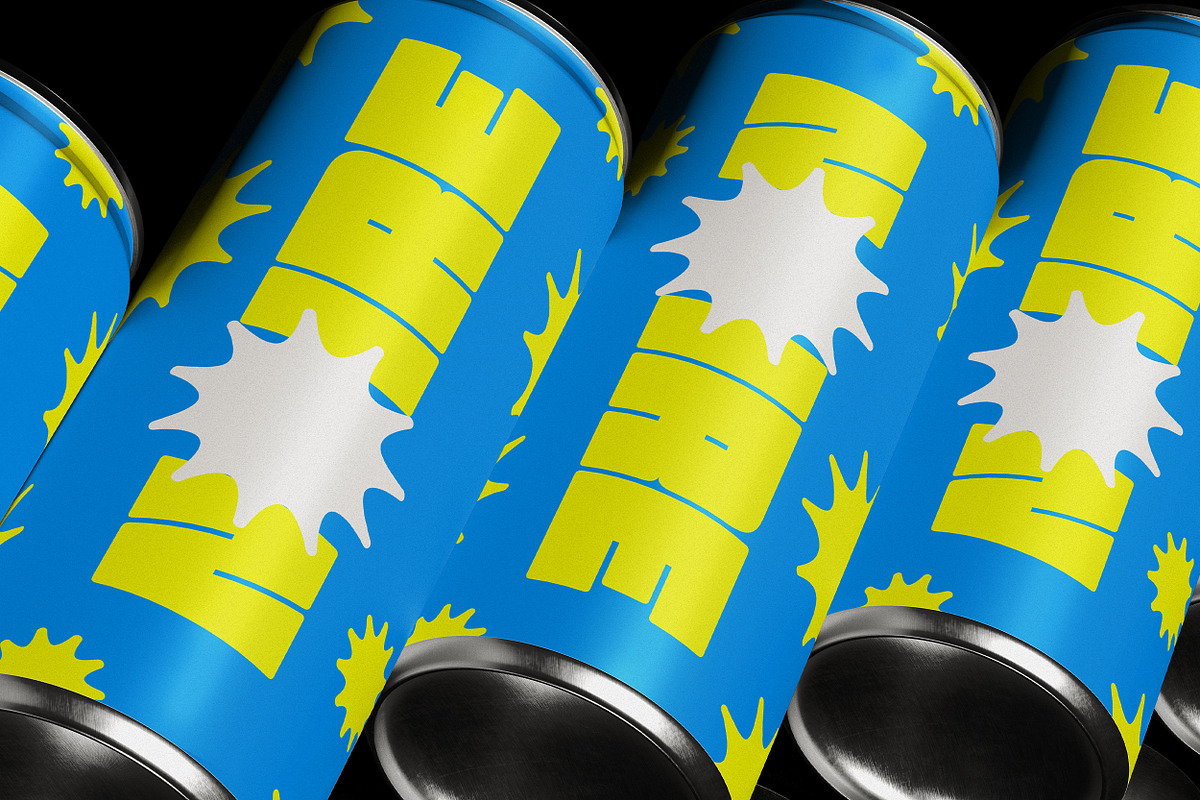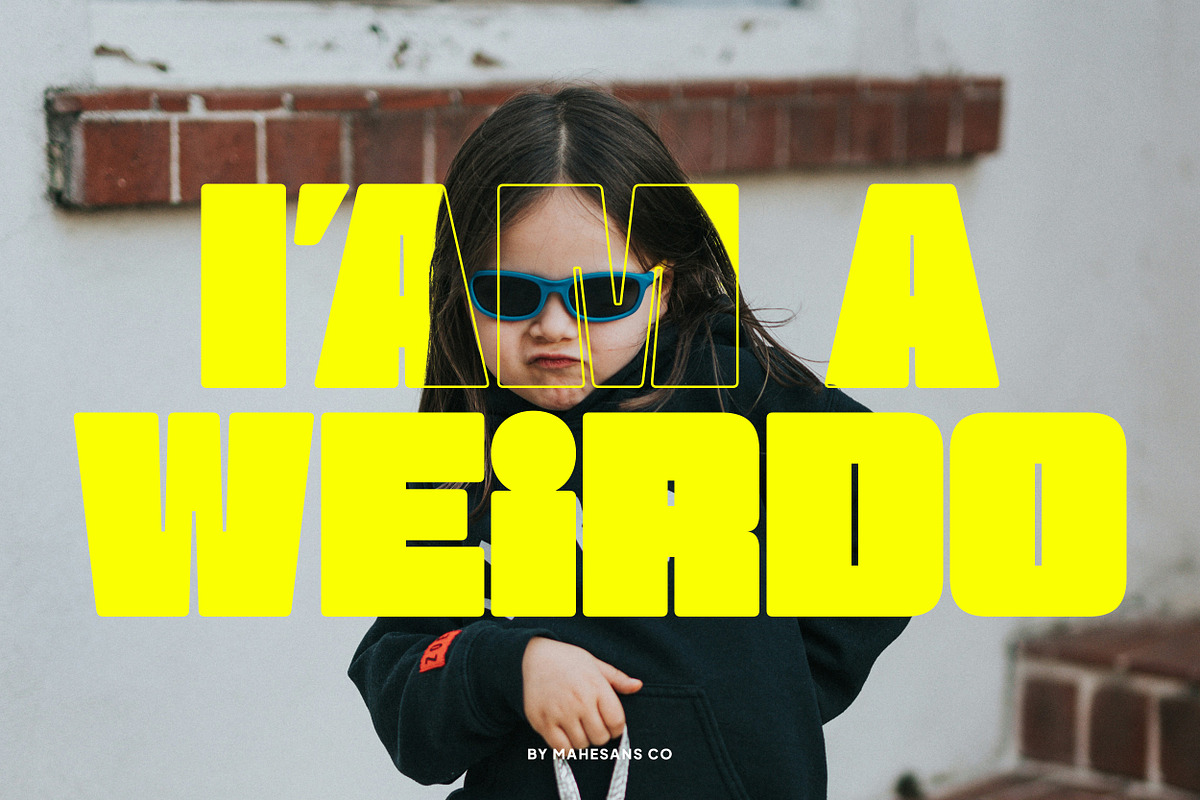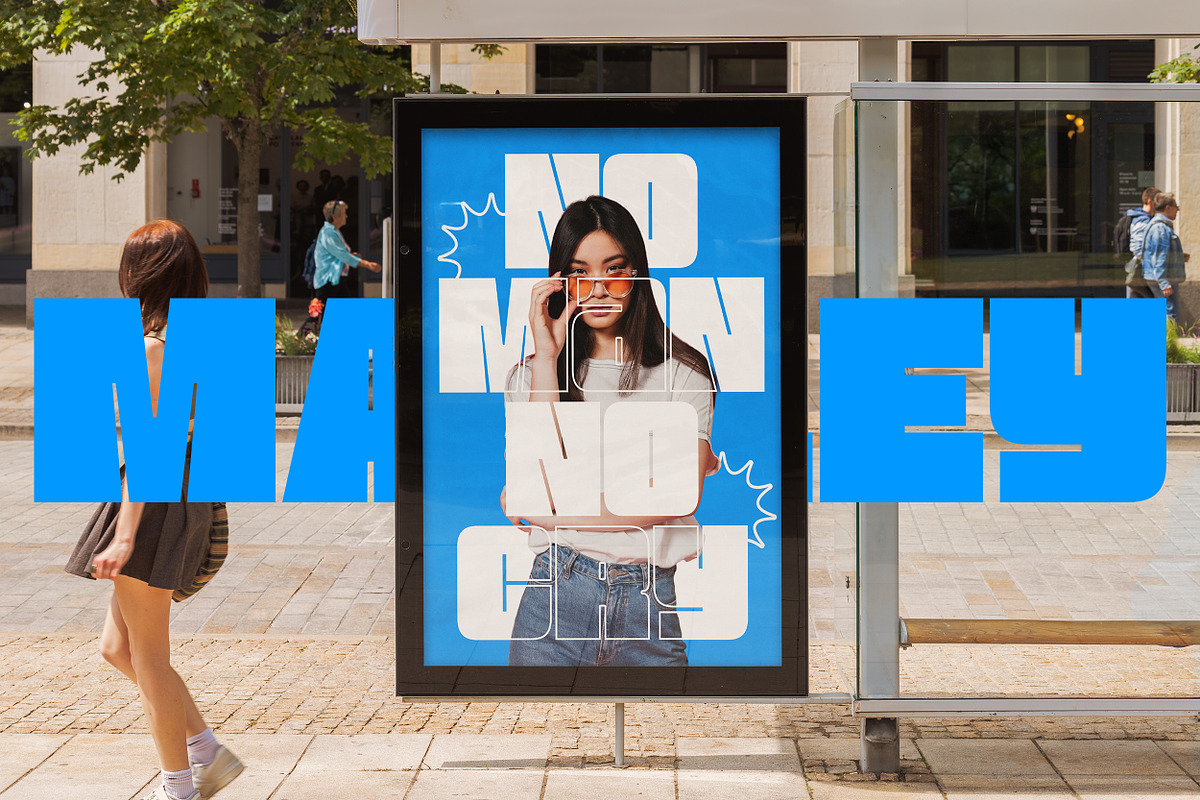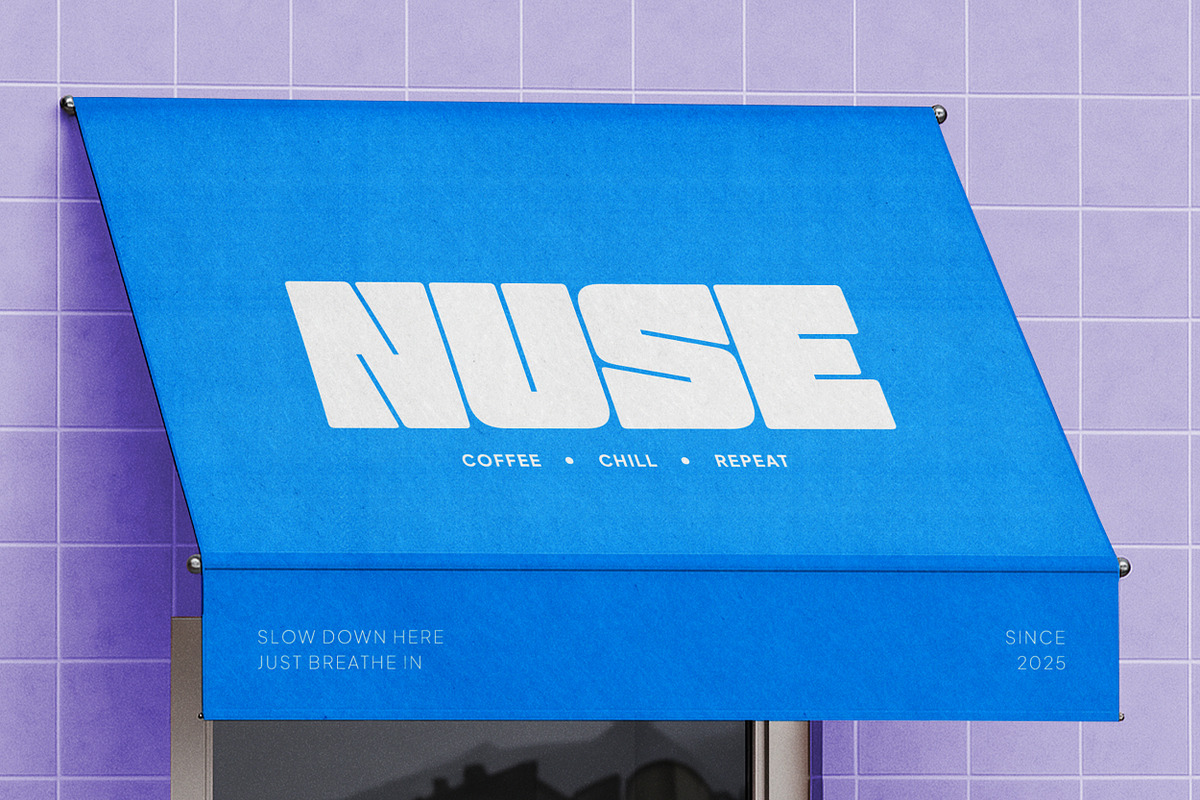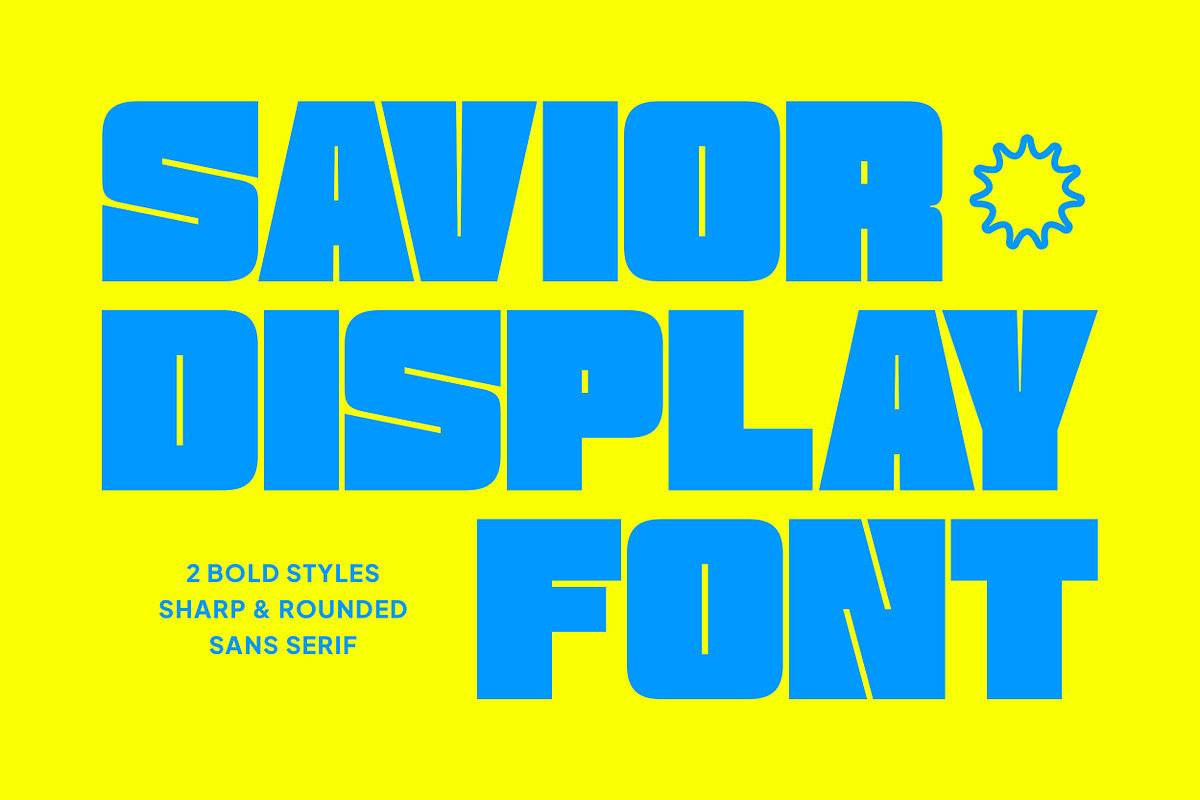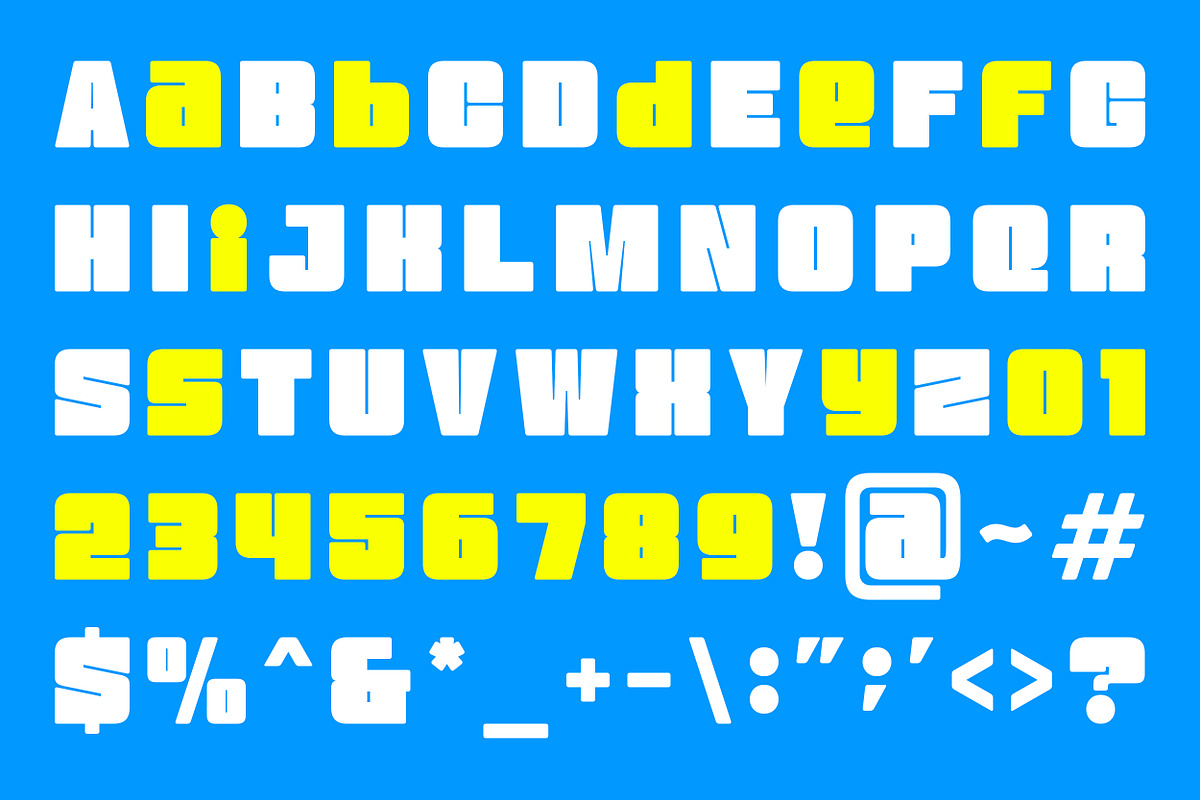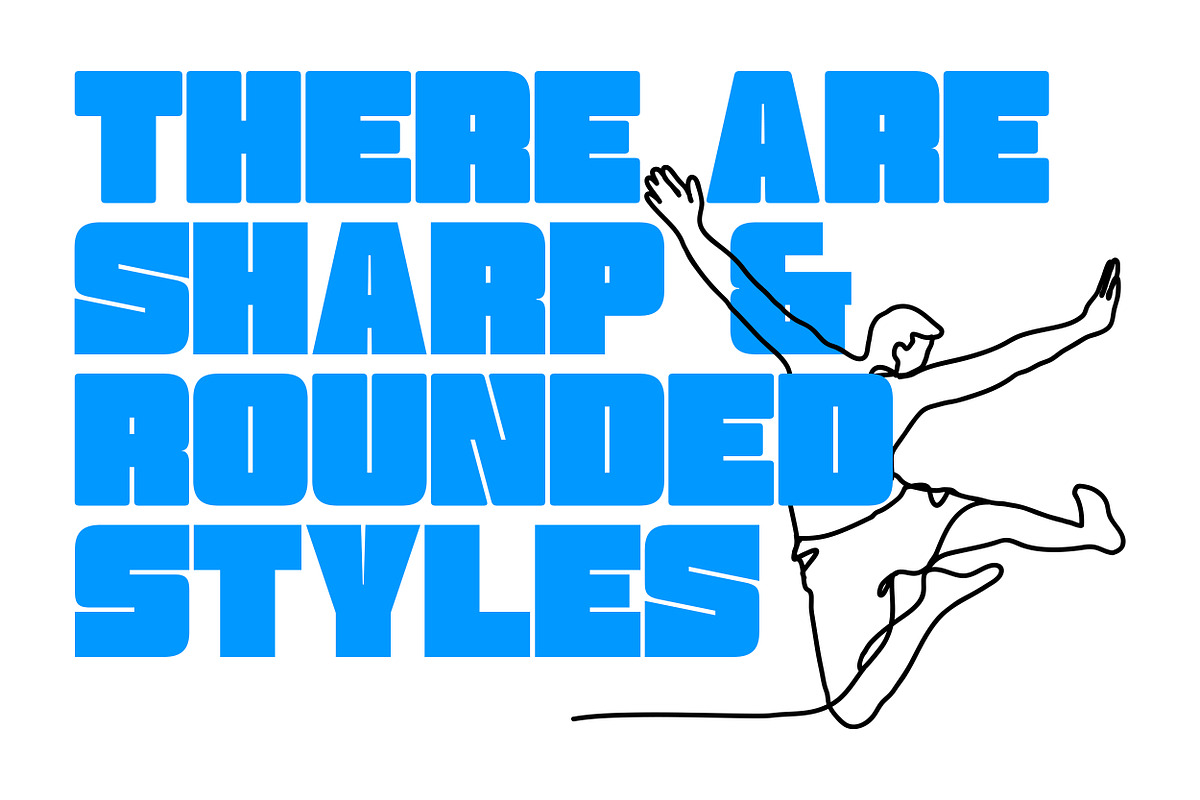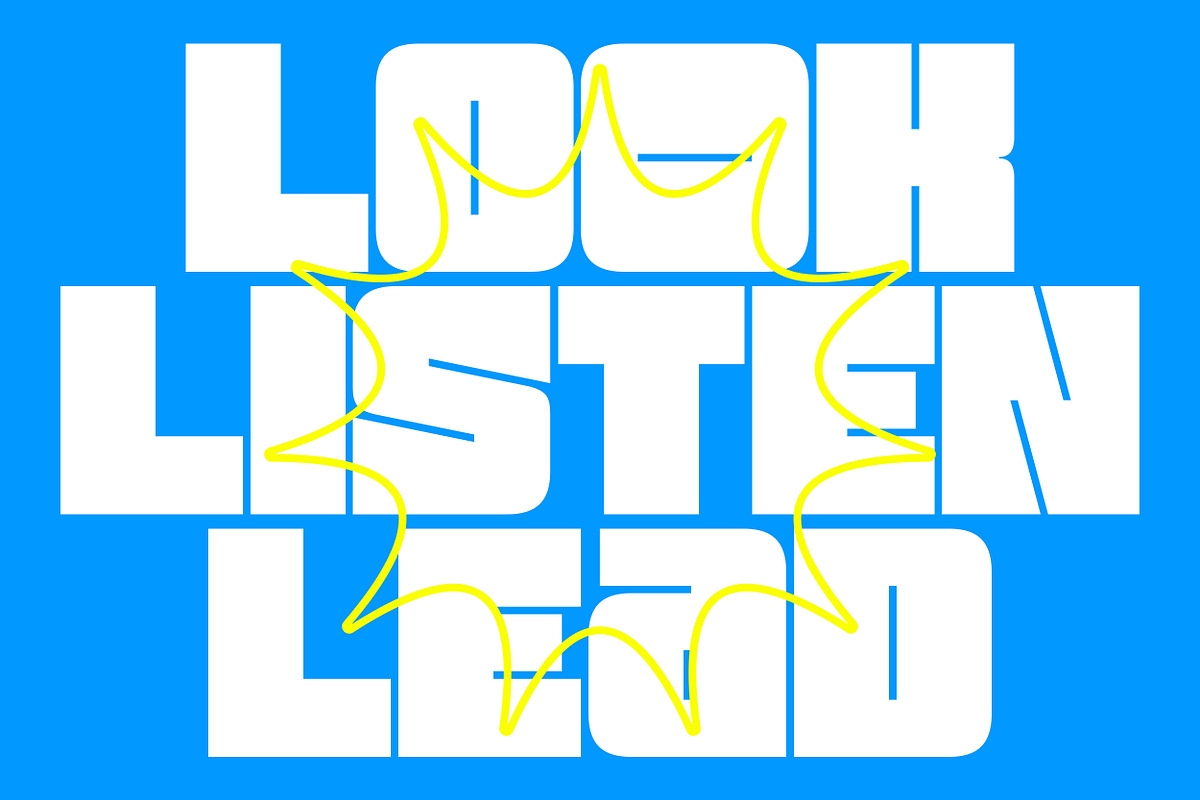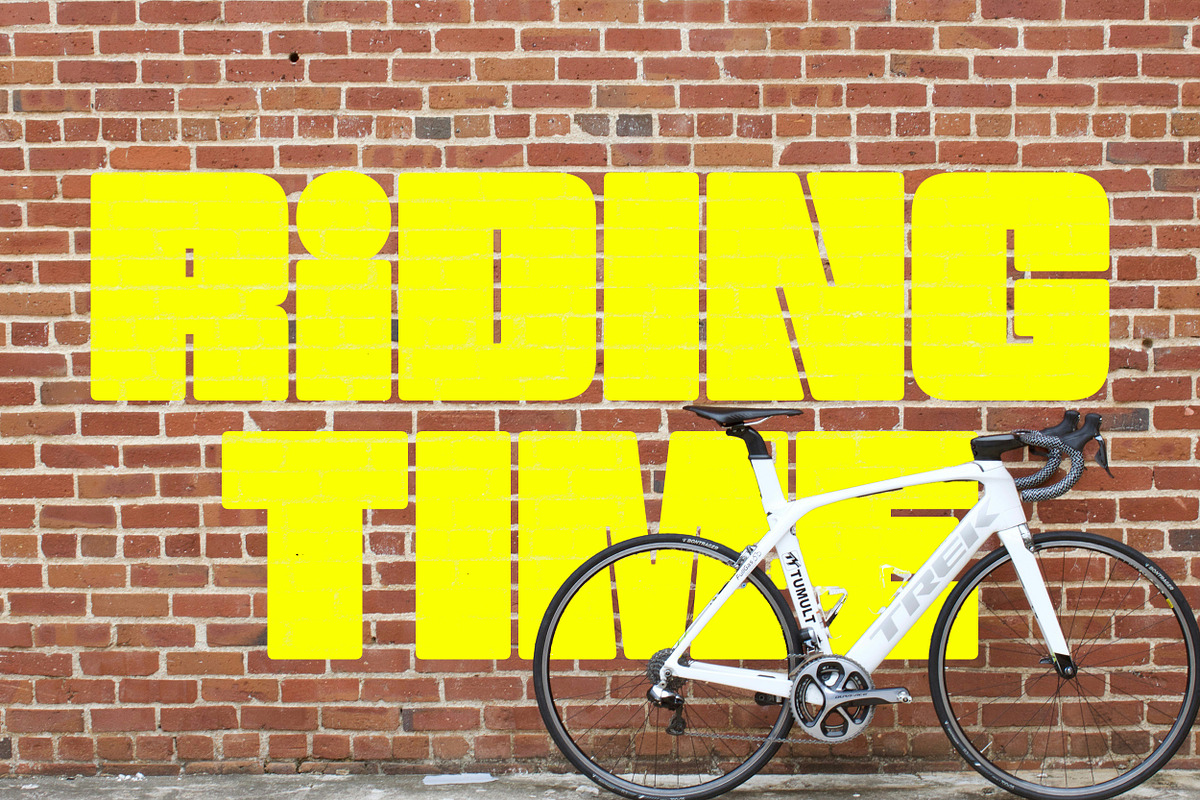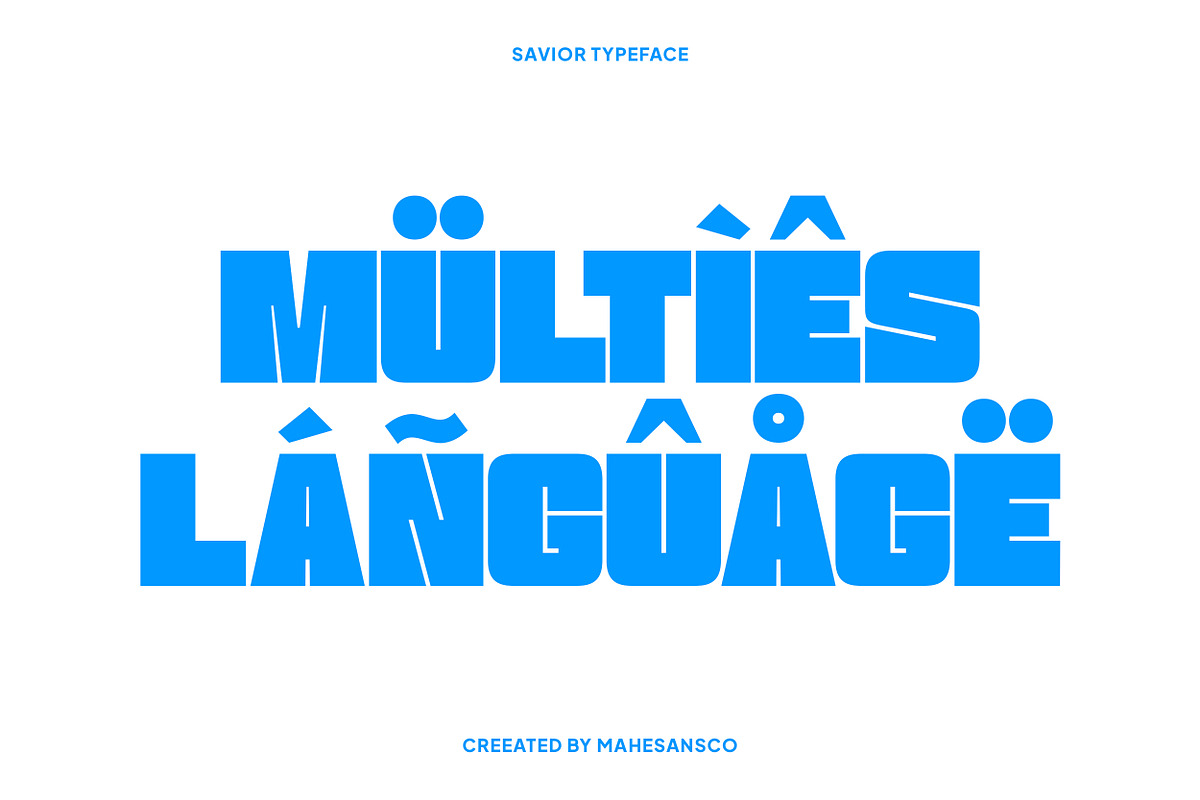
Savior - 2 Styles Bold Sans Serif
SAVIOR is a powerful bold display font with a punchy personality and futuristic charm. Designed to make every headline scream with confidence, SAVIOR brings strong geometry and playful proportions that stand out in any design.
It comes in 2 striking styles, Sharp and Rounded, giving you flexibility to set the right tone: edgy or friendly. Perfect for posters, branding, packaging, editorial titles, or any project that needs that bold, confident statement.
- 2 Bold Styles → Sharp & Rounded
- Multilanguage